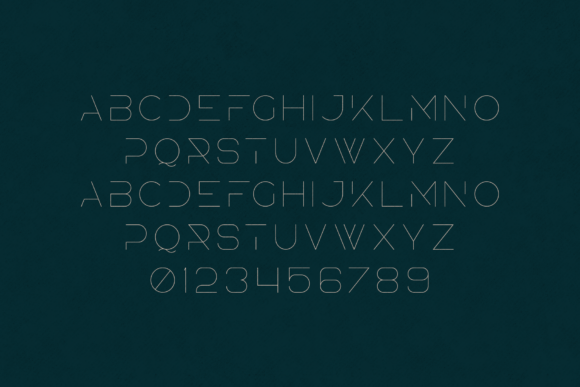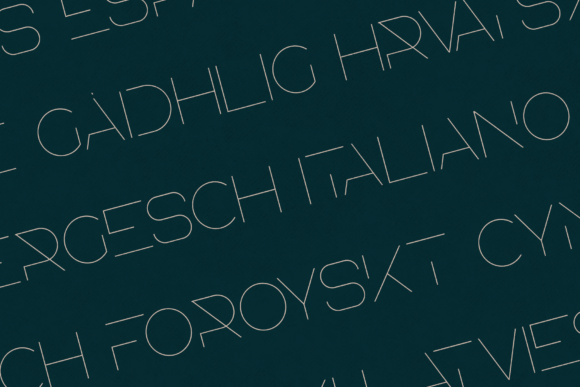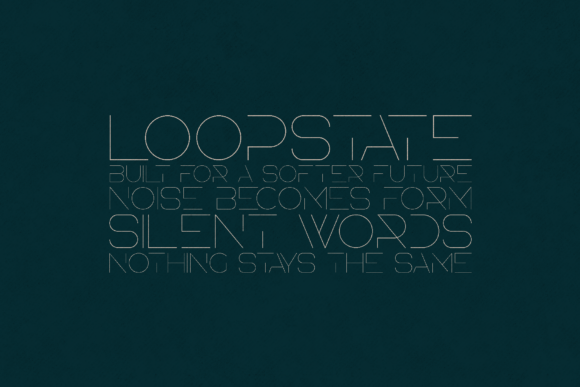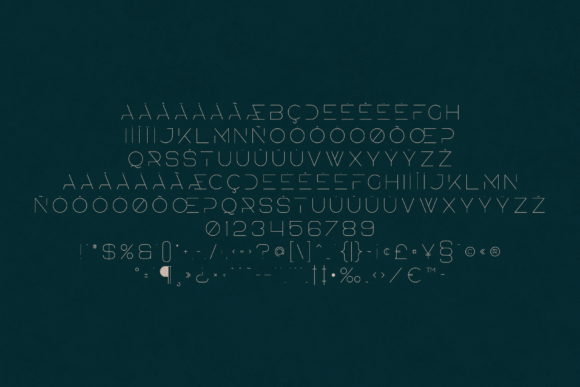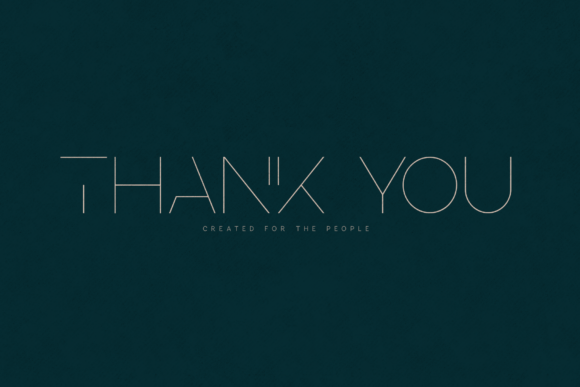
Agelast Font: Elevate Your Designs with a Futuristic Twist
In the realm of typography, fonts play a pivotal role in defining the visual identity of a brand, product, or creative project. With the vast array of fonts available, selecting the right one can be daunting. However, if you’re aiming for a modern, futuristic look, Agelast Font stands out as an exceptional choice. Designed with thin geometric strokes and minimalist letterforms, Agelast combines clean structural lines with a sleek sci-fi aesthetic, making it perfect for a wide range of applications.
The Essence of Agelast Font
Agelast is a modern futuristic display font that embodies the essence of innovation and style. Its design is characterized by thin geometric strokes, which create a sense of sleekness and sophistication. The minimalist letterforms ensure that the font remains clean and legible, even at larger sizes. This combination results in a typography that feels innovative, stylish, and highly distinctive.
Ideal Applications for Agelast Font
Agelast’s unique characteristics make it an ideal choice for various design projects, including:
- Technology Branding: For tech companies looking to establish a modern and forward-thinking brand image, Agelast offers a typography that speaks to innovation and cutting-edge technology.
- Futuristic Design Projects: Whether you’re working on a sci-fi movie poster, a futuristic video game, or a concept design for a product of the future, Agelast provides the perfect aesthetic.
- Sci-Fi Visuals: Bring your sci-fi stories to life with a font that screams futuristic. Agelast’s sleek lines and geometric shapes are reminiscent of cosmic landscapes and advanced technology.
- Space Themed Graphics: For any project that explores the vastness of space, Agelast offers a typographic solution that feels out of this world.
- Modern Editorial Layouts: Add a touch of modernity to your magazines, newspapers, or digital publications with Agelast. Its clean and minimalist design ensures that your content stands out.
- Posters: Whether it’s for a movie, event, or product launch, Agelast can help create visually striking posters that capture attention.
- Digital Interfaces: For app designs, website headers, or digital advertising, Agelast provides a professional and contemporary look.
- Creative Typography Compositions: Experiment with Agelast in artistic typography compositions where you want to make a statement.
- Contemporary Visual Identities: For brands looking to revamp their visual identity with a modern twist, Agelast can be a key element in their branding strategy.
Why Choose Agelast Font?
Agelast Font offers several advantages that make it a go-to choice for designers:
- Uniqueness: In a sea of fonts, Agelast stands out with its distinctive futuristic look, ensuring your project doesn’t go unnoticed.
- Versatility: Despite its specific futuristic aesthetic, Agelast is surprisingly versatile, suitable for a wide range of design applications.
- Legibility: The minimalist design ensures that Agelast remains legible across various sizes and resolutions, making it practical for both print and digital use.
- Modern Appeal: For projects that demand a modern and trendy look, Agelast delivers a style that’s hard to achieve with more traditional fonts.
How to Use Agelast Font Effectively
To maximize the impact of Agelast Font in your designs:
- Experiment with Sizes: Given its geometric and minimalist design, Agelast looks great at both large and small sizes. Experiment to find the perfect size for your project.
- Play with Colors: While Agelast’s design shines in black and white, don’t be afraid to experiment with colors, especially gradients or neon colors, to enhance its futuristic appeal.
- Combine with Other Fonts: For added depth, consider pairing Agelast with a more traditional or serif font to create contrast and visual interest.
- Consider Line Spacing: Given its sleek lines, ensuring adequate line spacing can enhance readability, especially in longer texts.
Agelast Font is more than just a typography; it’s a statement. It speaks to those who envision a future where technology and design converge in the most elegant and innovative ways. Whether you’re a designer, a craftsperson, or simply someone with a passion for typography, Agelast offers a world of possibilities. Its unique blend of futuristic appeal, legibility, and versatility makes it an invaluable tool in your creative arsenal. So, if you’re looking to add a touch of the future to your designs, consider Agelast Font – the perfect fusion of style, innovation, and futuristic charm.